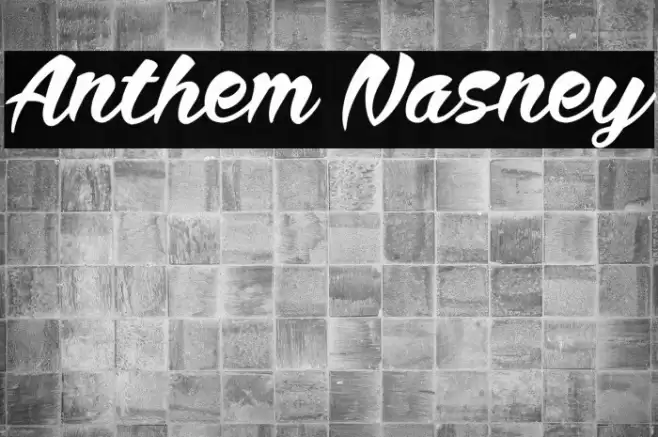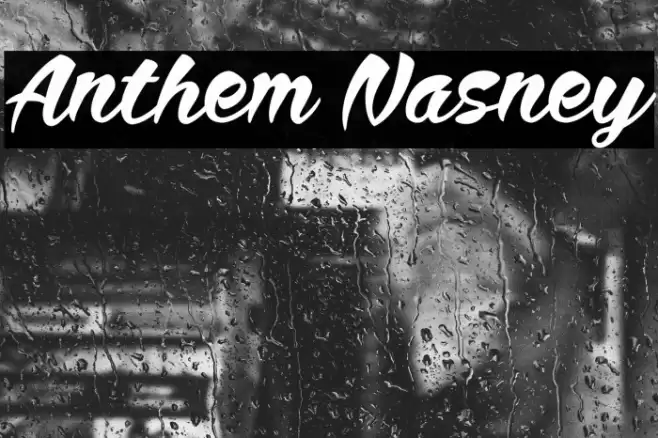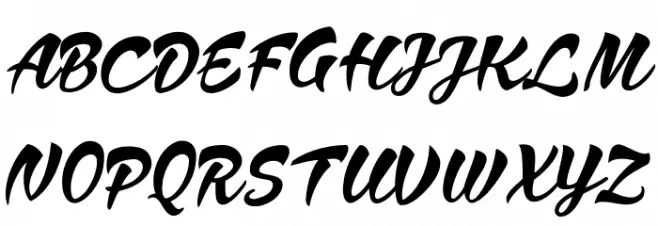
Anthem Nasney Font
Anthem Nasney Description
This font features a bold and dynamic script style with a flowing, cursive design. The characters are interconnected, creating a seamless and elegant appearance. The strokes are thick and consistent, providing a strong visual impact. The uppercase letters are slightly more ornate, with flourishes that add a touch of sophistication. The lowercase letters maintain a smooth and harmonious flow, making the font suitable for both formal and casual applications. The overall design is balanced and visually appealing, with a modern twist on traditional script fonts.
A bold, dynamic script font with flowing, interconnected characters from Uncategorized fonts.
- Proposed Projects: Ideal for branding, invitations, greeting cards, and logo design.
- Use Case: Logos, Headlines, Invitations